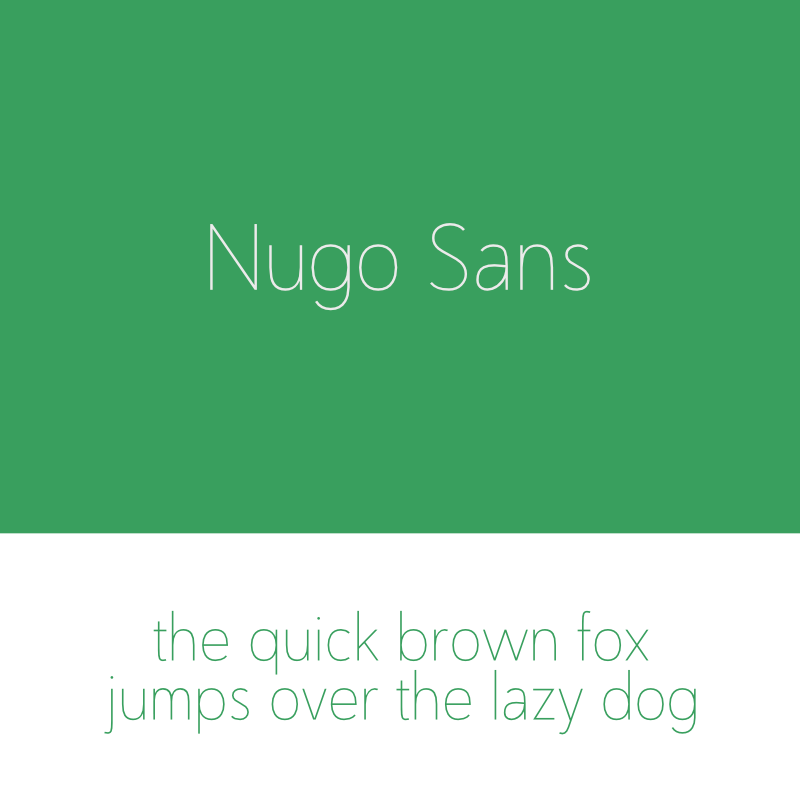
Font name: | Nugo Sans |
Author: | Sandylukee |
Note by Sandylukee | |
Nugo Sans is a Light Sans Serif Font who can be applied in any kind of design especially that need a light weight typeface. Nugo Sans is a free Font. You can use them freely in your products & projects - print or digital, commercial or otherwise. However, you can't sell the fonts on their own. You don't have to pay to use this, but your donation will be very meaningful and appreciated. you can donate via my paypal sandylukee@gmail.com I'll also happy to hear some comment from you about this font. You can use comment section to leave it or email me at sandylukee@gmail.com I hope it will help you with your design. Thank You |